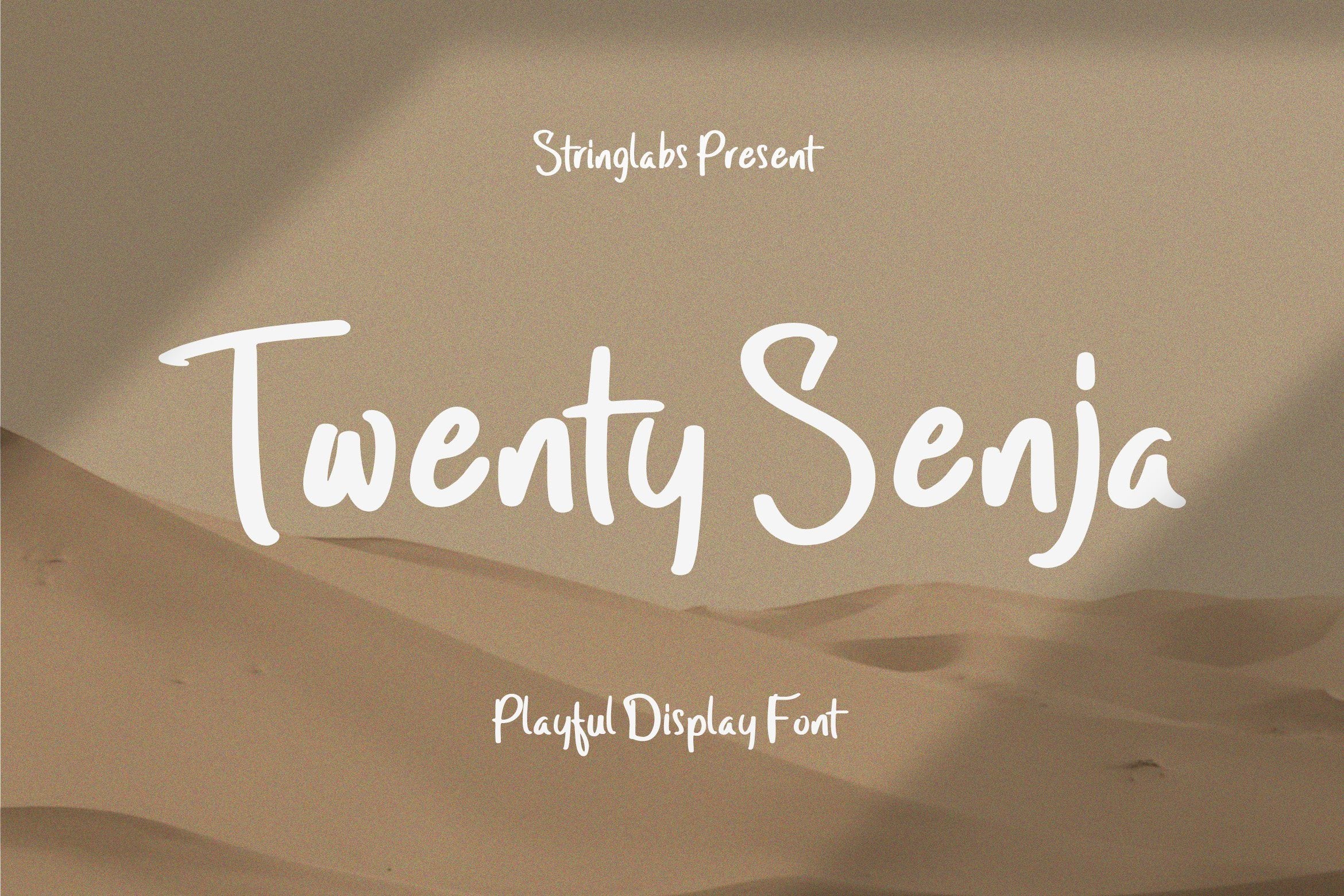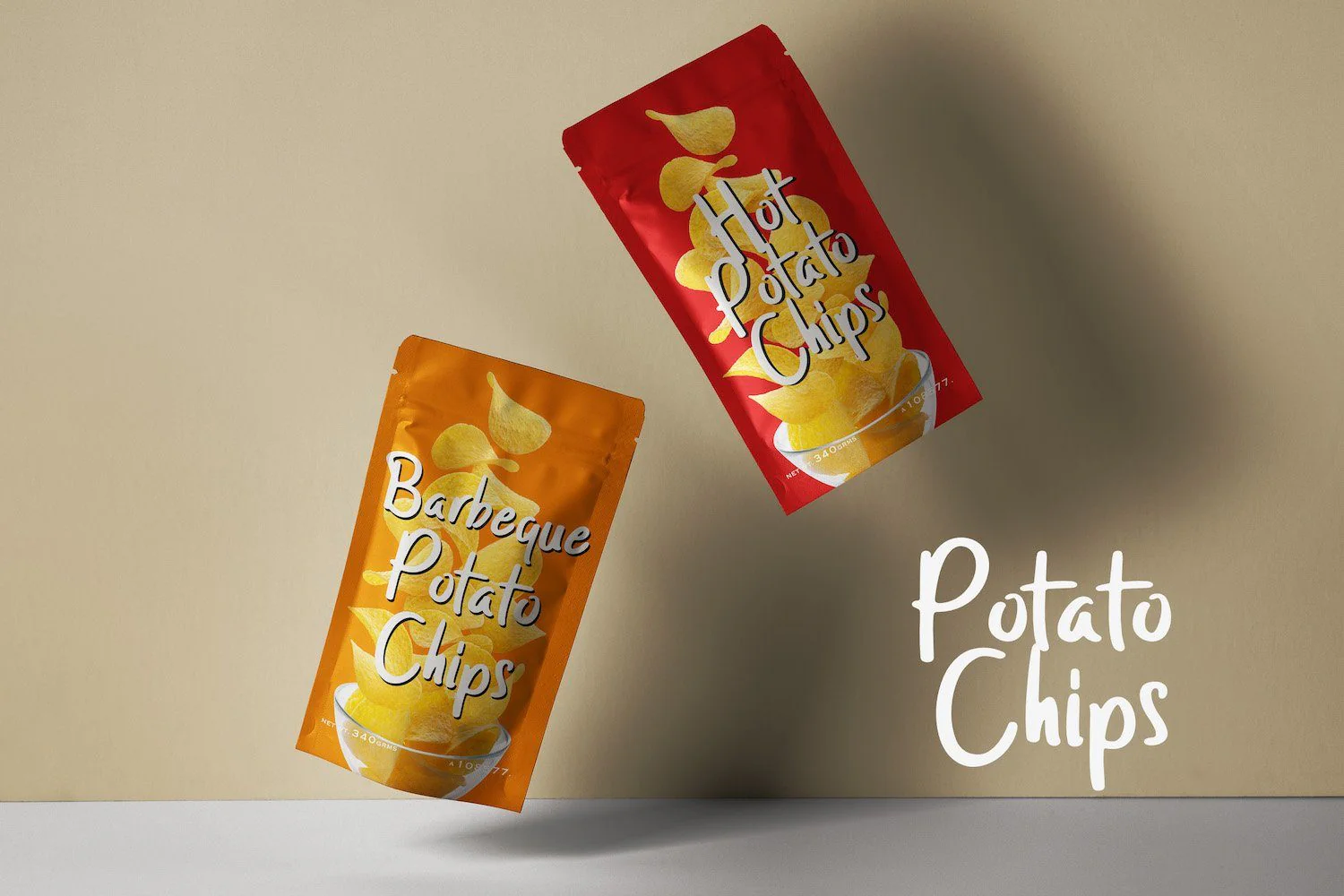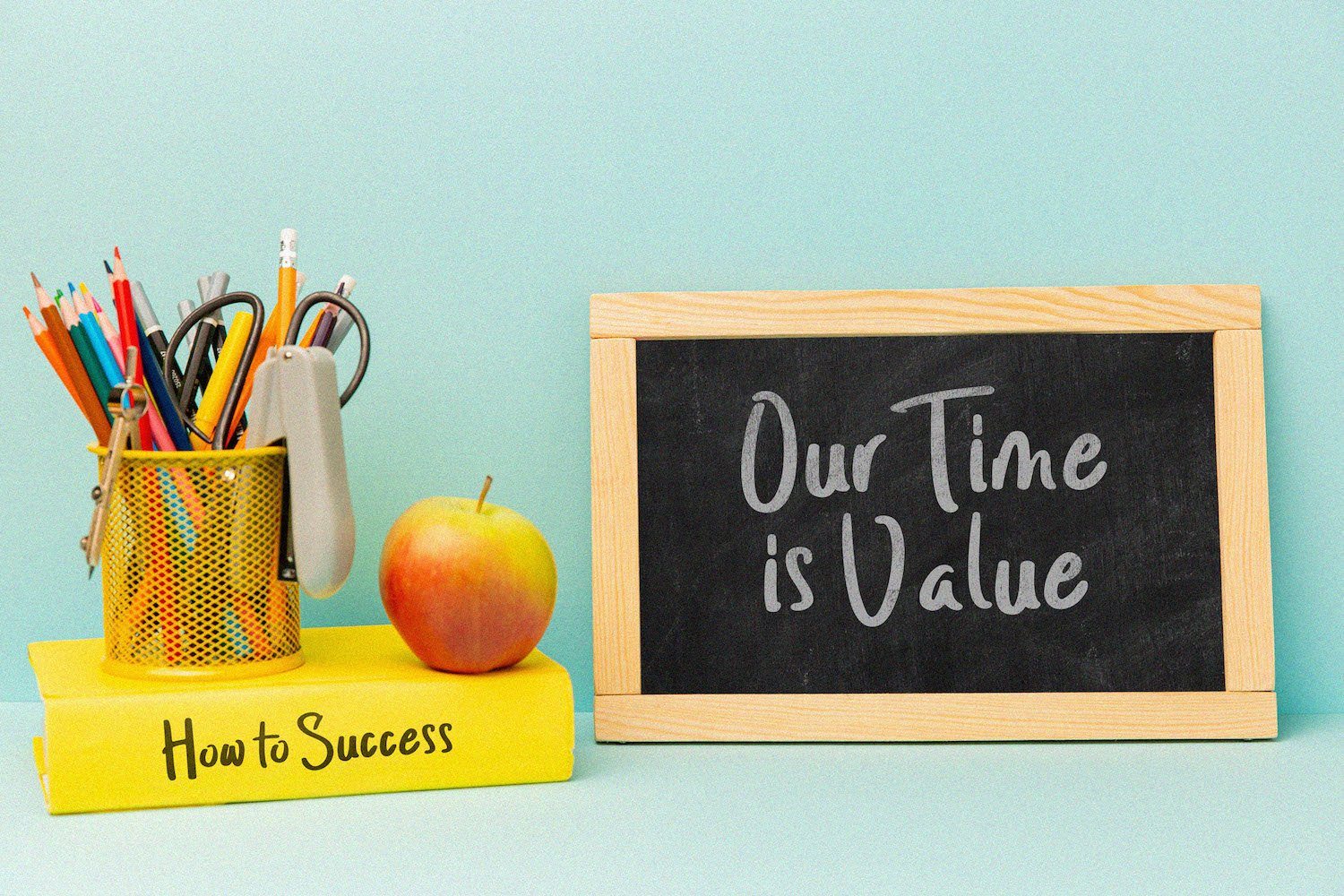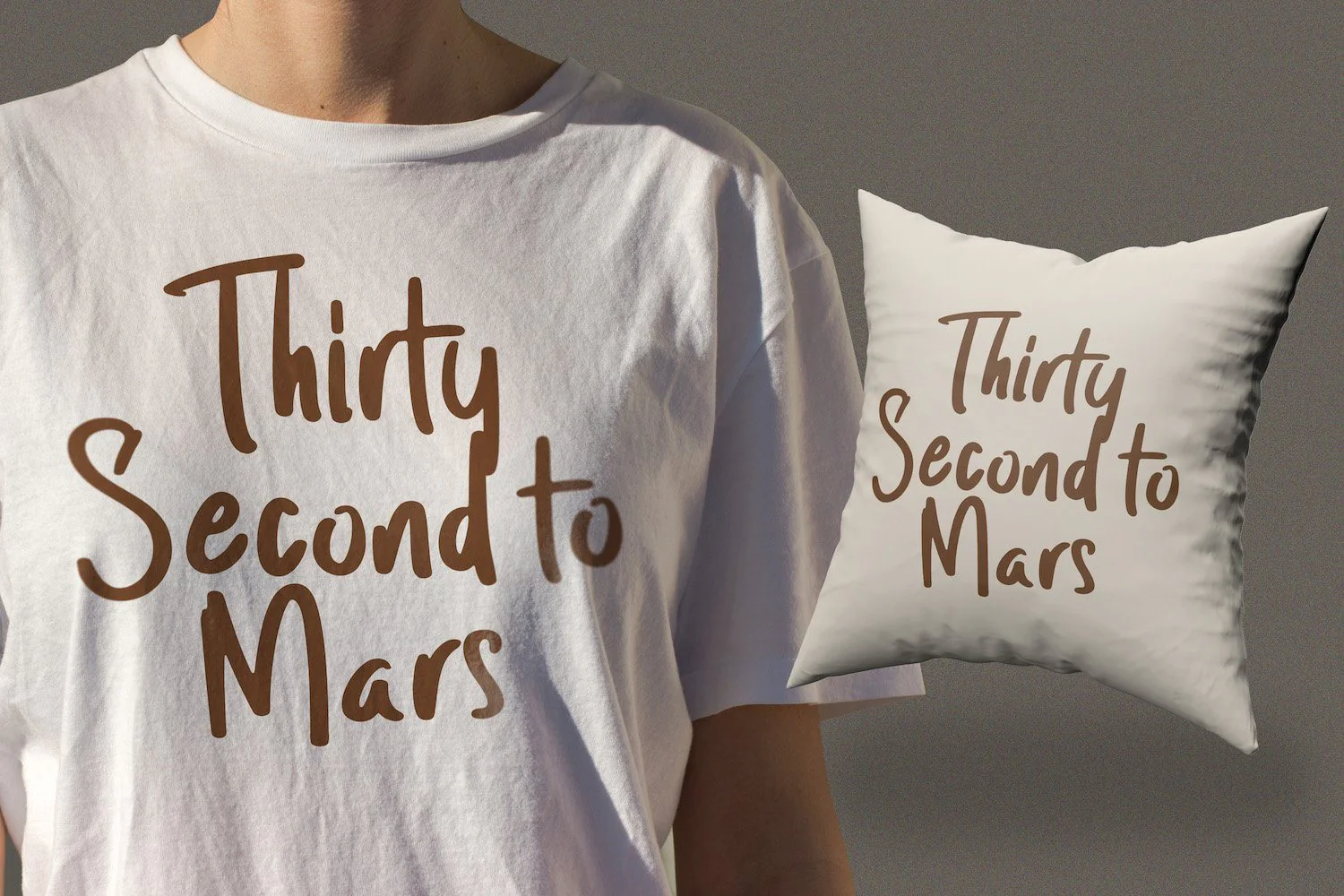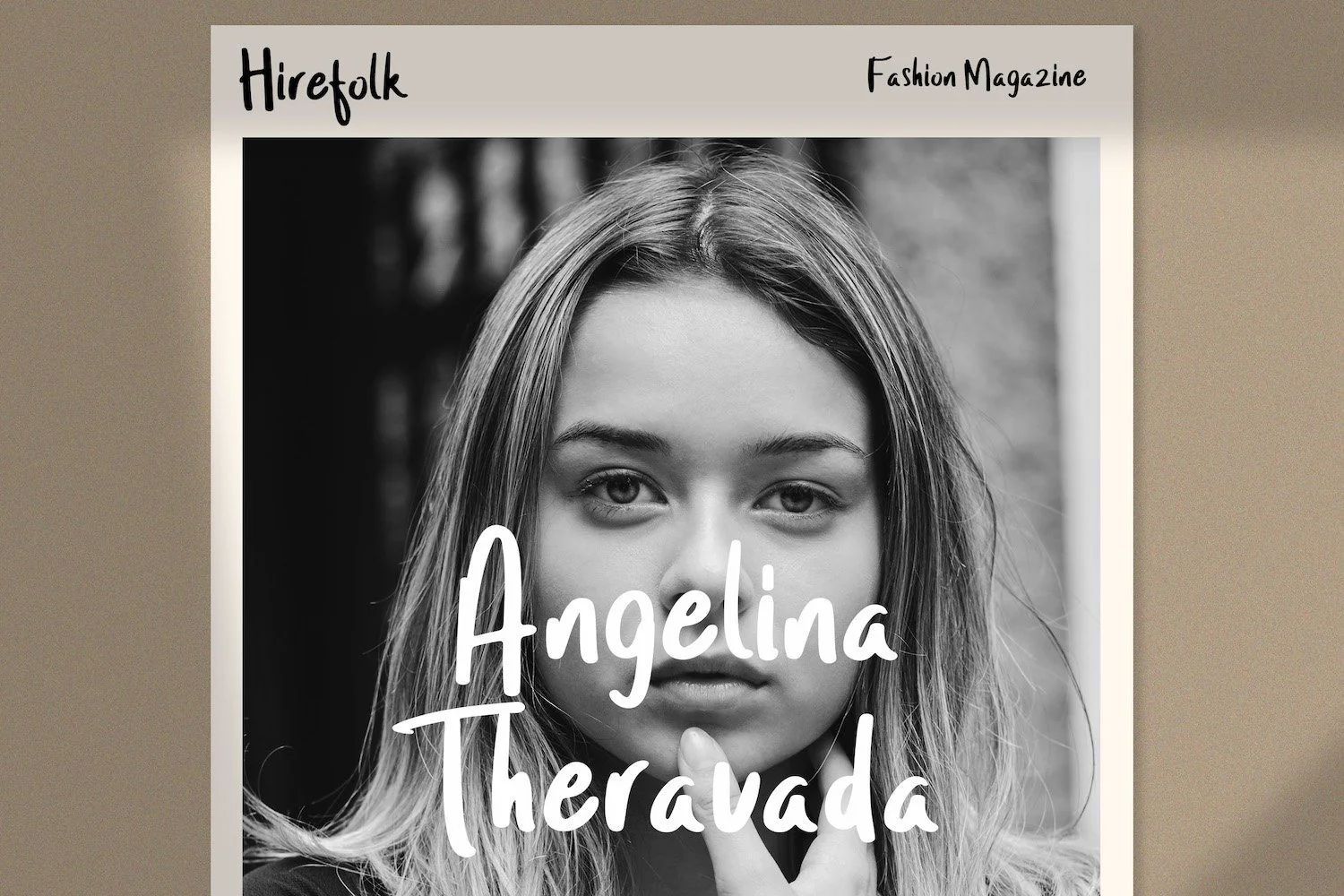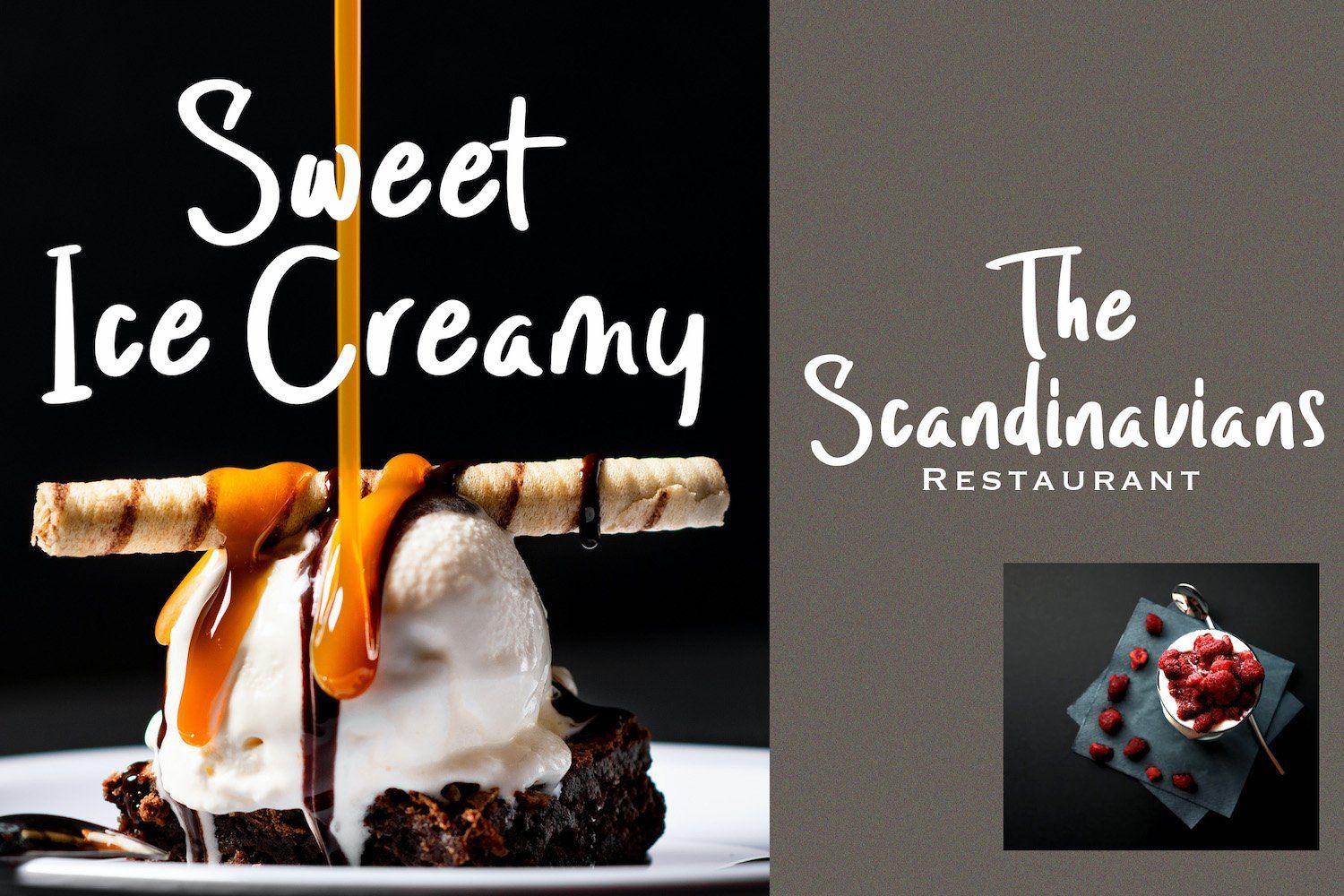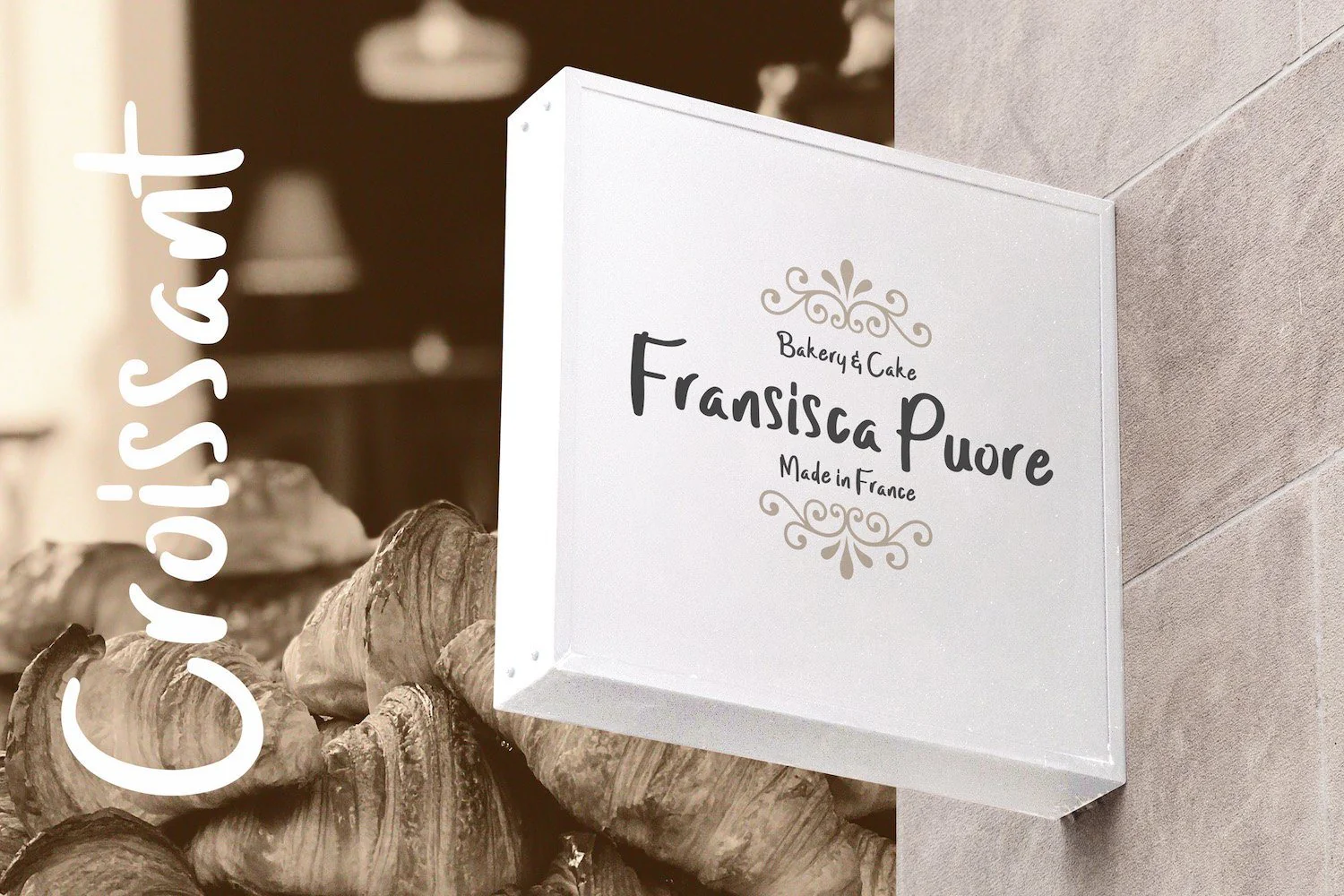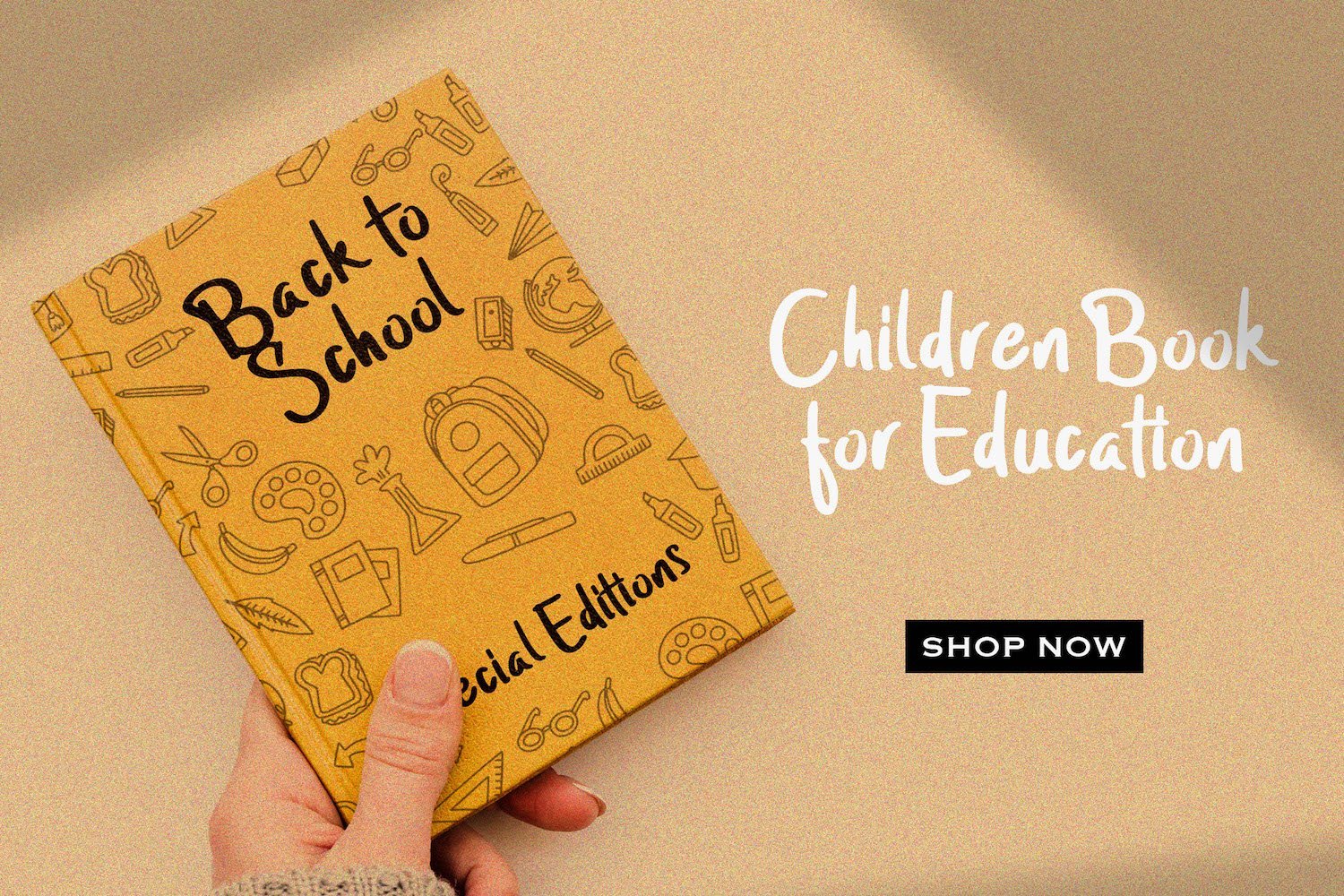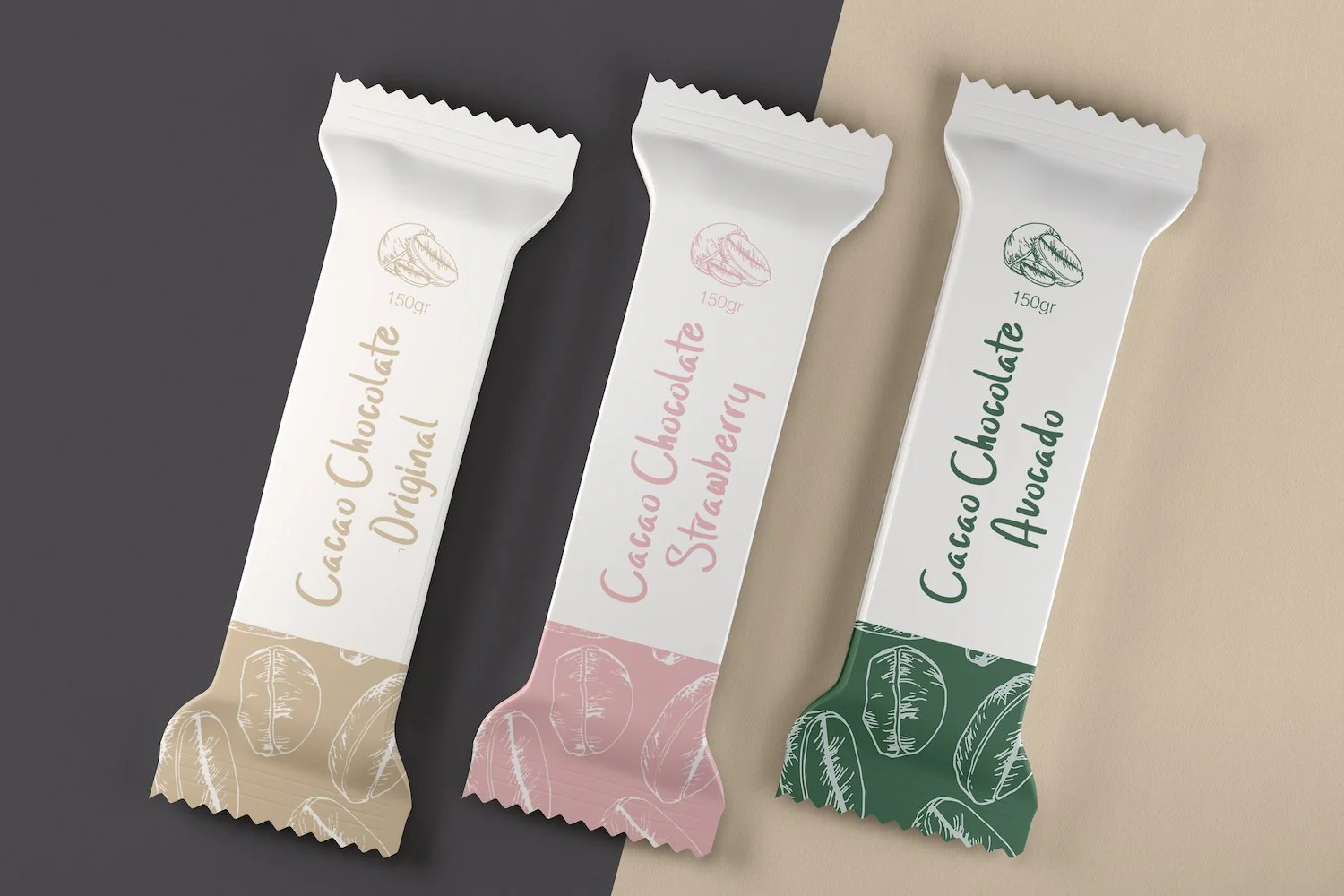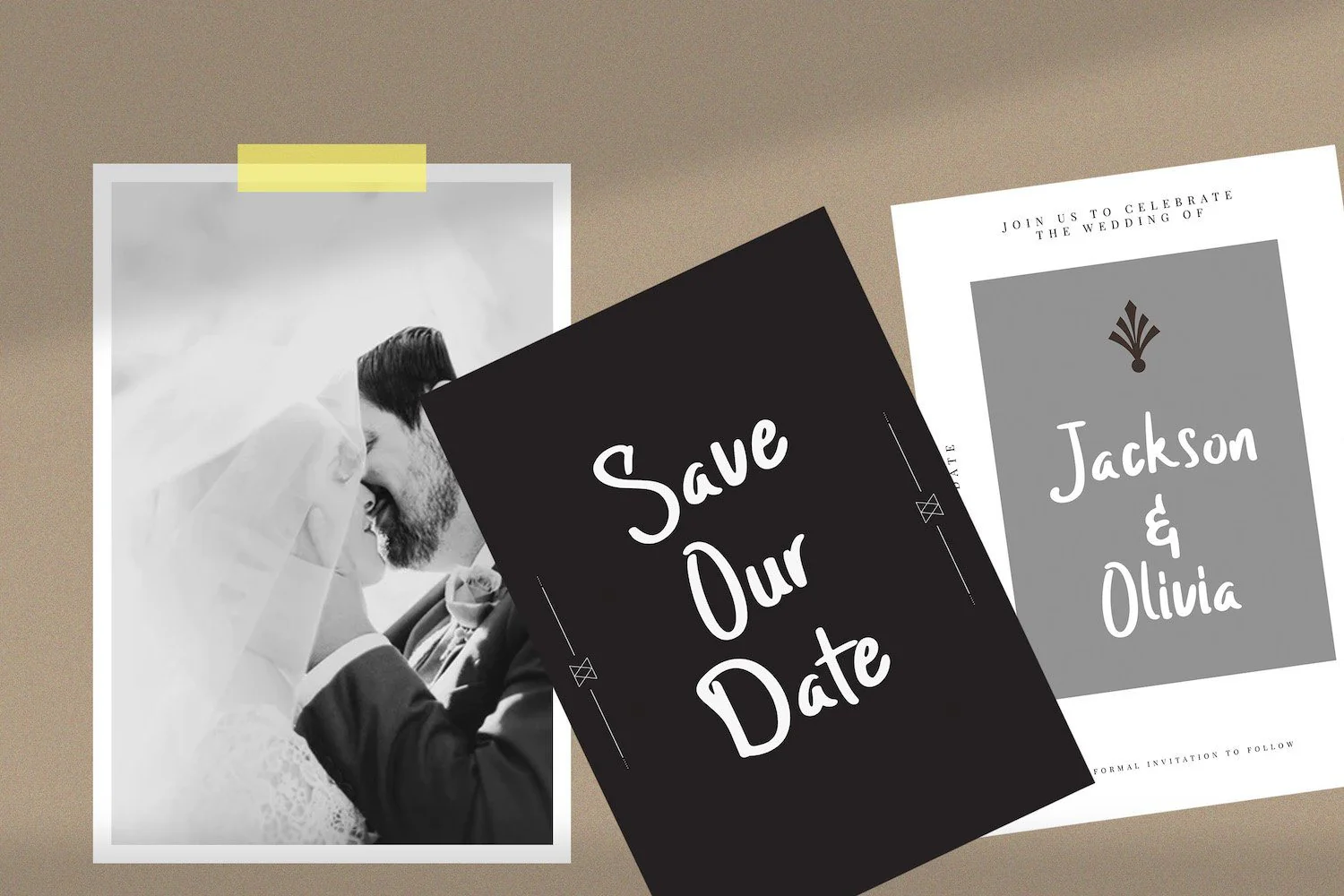
Twenty Senja - Playful Display Font
Introducing Twenty Senja - Playful Display Font
Twenty Senja is a playful font that specially crafted for everyone who love comic style and cartoon font style. The Twenty Senja also made with unique concept and decorative fun style.
Introducing Twenty Senja - Playful Display Font
Twenty Senja is a playful font that specially crafted for everyone who love comic style and cartoon font style. The Twenty Senja also made with unique concept and decorative fun style.